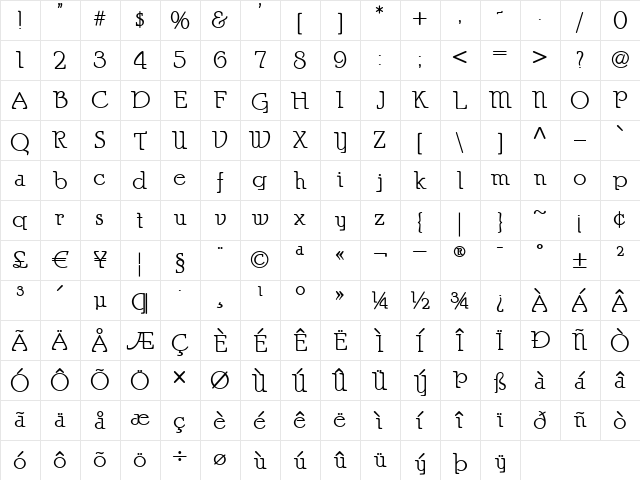
ParsnipNF Regular
| Foundry | Nick's Fonts |
| Designer | Nick Curtis |
Design Context for ParsnipNF Typeface
ParsnipNF is a composed and adaptable typeface that performs quietly and consistently across a wide range of design contexts.